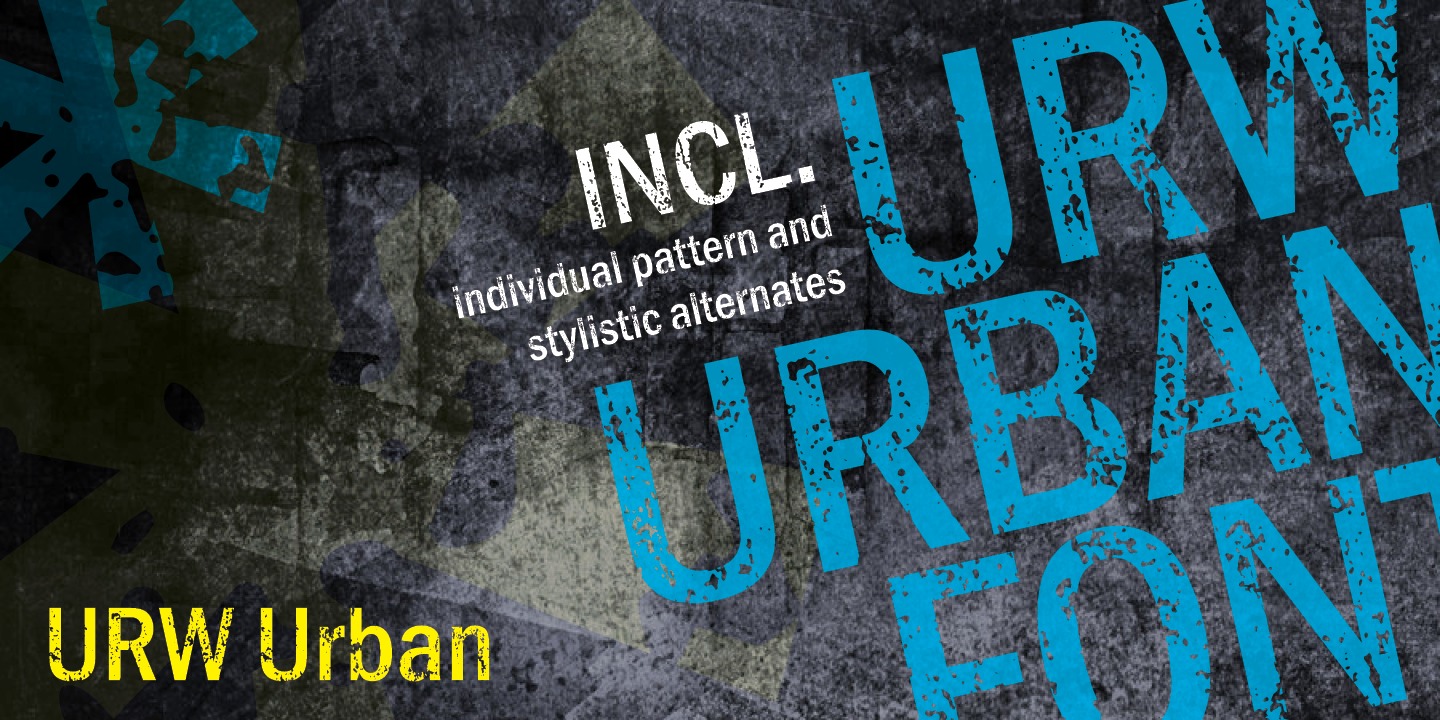
Anita Jürgeleit is a type designer, working at URW++.
Before she found her way into the field of type design, she finished her education in logistics business, an apprenticeship as a media designer and finally she graduated in communication design at the University of applied Sciences, Hamburg. All along the way, she had a marked preference for type and the clarity of its shape. “I just never knew how type was created and where it came from. Otherwise I would have been engaged with it much earlier.“
Anita finished her studies with the Font Hangulatin. She found a way to connect Latin characters with the Korean type system.
In 2014 she won the Junior Golden Nail for Type Design at the Art Directors Club, Germany for this project.